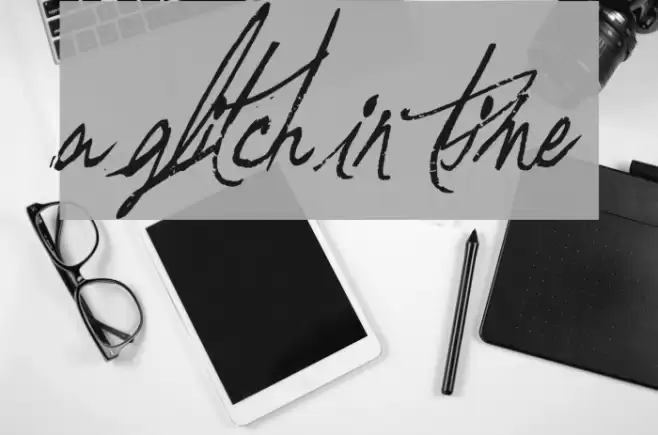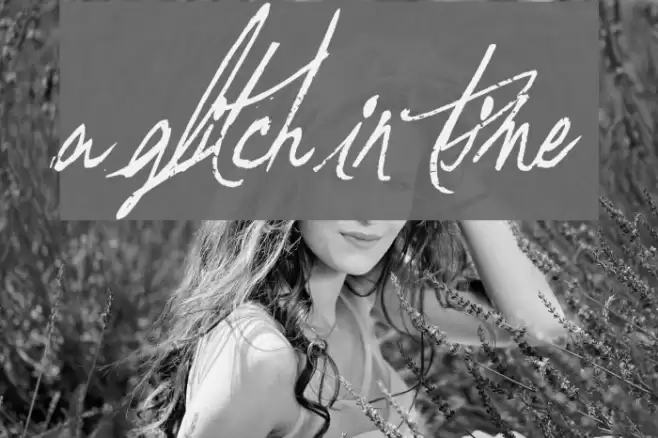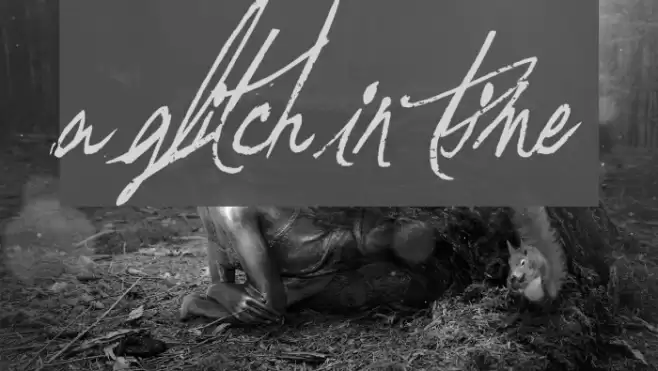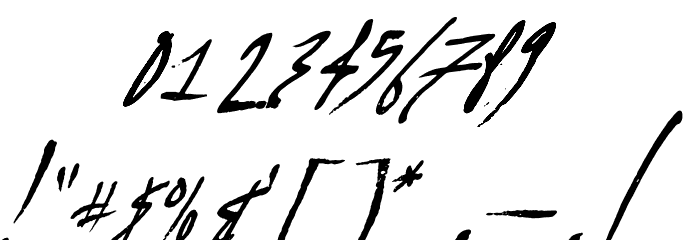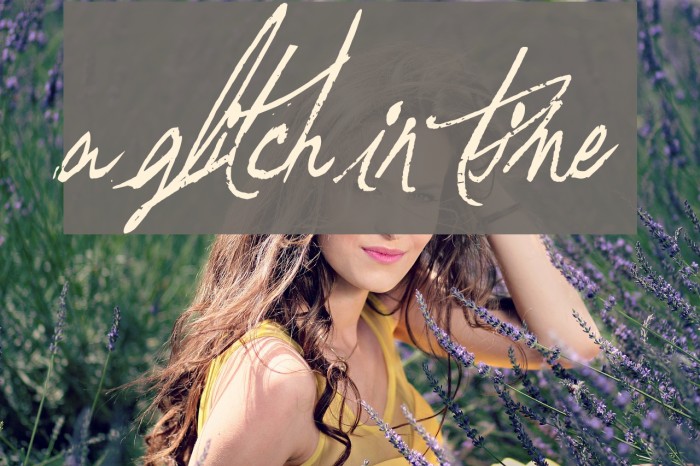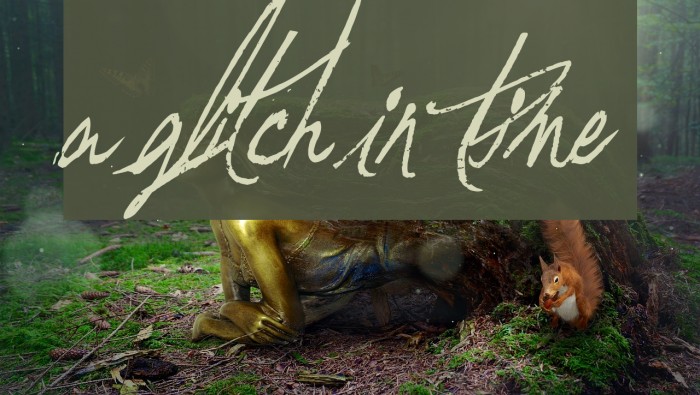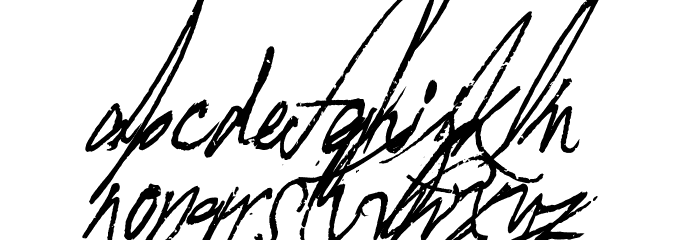
A Glitch In Time Font
A Glitch In Time Description
This font exhibits a chaotic and glitchy style, characterized by its overlapping and distorted letterforms. The strokes are erratic and dynamic, creating a sense of movement and disruption. The letters are highly stylized, with an almost scribbled appearance that suggests a handwritten quality. Despite the apparent randomness, there is a consistent aesthetic that ties the characters together, making it suitable for projects that require a unique and edgy look. The font's unconventional design makes it stand out, ideal for creative and artistic applications.
A chaotic, glitchy font with overlapping, distorted letterforms and a dynamic, scribbled style from Handwritten fonts.
- Proposed Projects: Ideal for album covers, experimental art projects, edgy branding, and digital media that seeks to convey a sense of disruption or avant-garde aesthetics.
- Character Spacing: Tight
- Overall Style: Modern, Experimental
- Use Case: Logos, Posters, Artistic projects